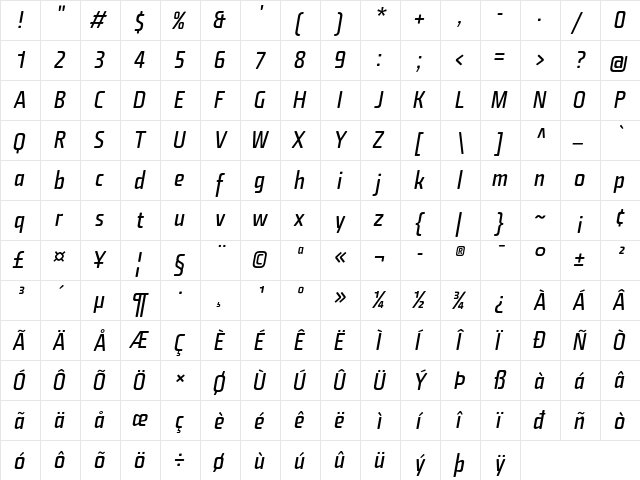
Fishmonger CR Italic
Design Context for Fishmonger CR Typeface
Fishmonger CR takes a measured approach to typography — its balanced proportions and neutral character make it a reliable workhorse for both digital and print work. The dynamic lean of this cut emphasises speed and emphasis in any layout.
Pro Tip: Use Fishmonger CR for emphasis, pull quotes, and subheadings where its slanted energy can add rhythm to the layout.